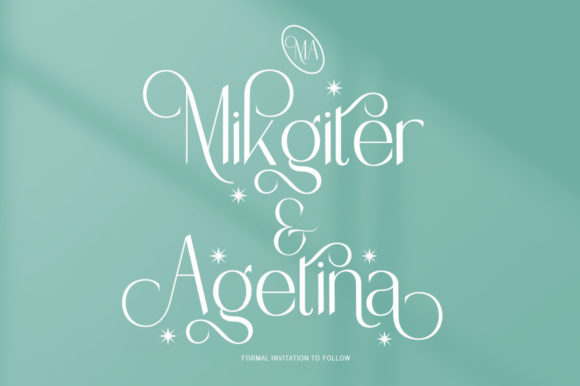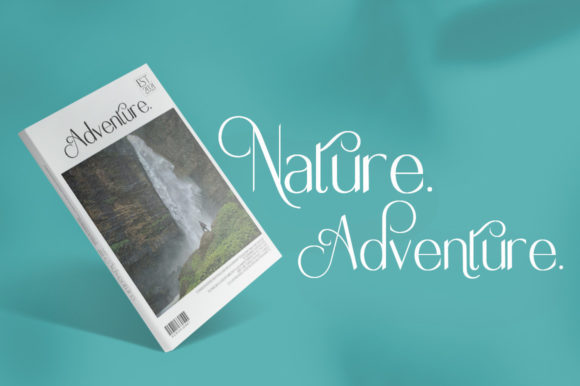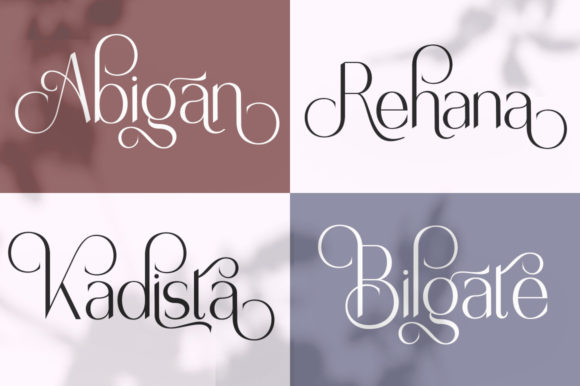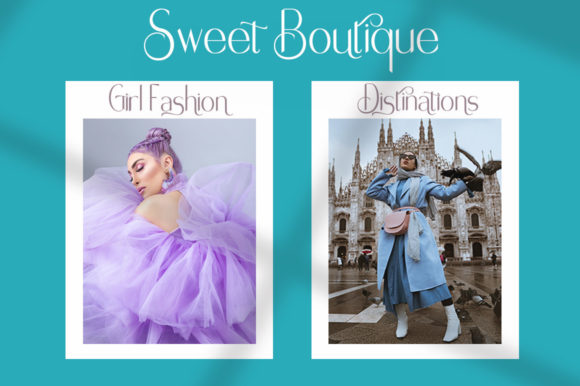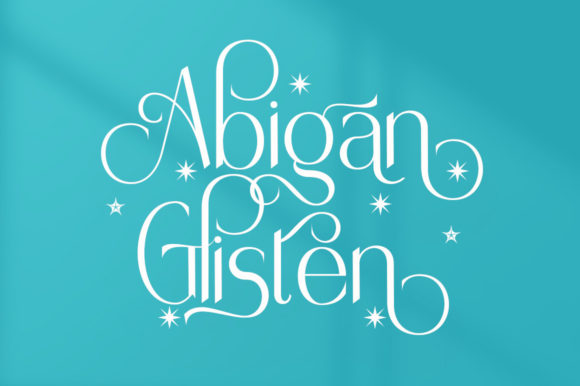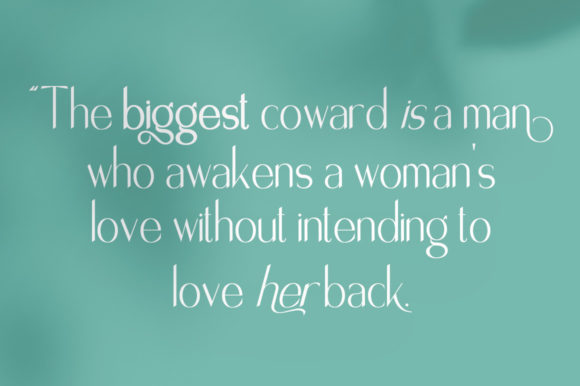
Introducing Abigan Font: Elevate Your Designs with Elegance
In the world of typography, a font can make or break a design. For designers and crafters seeking to add a touch of sophistication and class to their projects, Abigan Font is an excellent choice. This elegant serif font is designed to bring a delicate and refined aesthetic to your work, making it perfect for a wide range of applications.
The Characteristics of Abigan Font
Abigan Font stands out for its balanced and varied design. It is not too thin, nor too thick, making it versatile for use in various contexts. Whether you’re working on a luxury brand logo, a high-end product catalog, or an elegant wedding invitation, Abigan Font provides the perfect blend of sophistication and readability.
Delicate yet Durable
One of the key features of Abigan Font is its delicate look, which does not compromise on durability or legibility. The font’s design ensures that it remains clear and readable even at smaller sizes, making it ideal for body text in brochures, magazines, and websites. At the same time, its elegant strokes and classic serif details add a touch of luxury and refinement to headings and titles.
Abigan Font’s versatility is one of its strongest assets. It can be used across various design projects, including:
- Branding: Create a lasting impression with elegant logos and wordmarks that exude sophistication.
- Print Design: Enhance your brochures, posters, and business cards with a refined and classy look.
- Digital Media: Use Abigan Font in your website designs, social media graphics, and email newsletters to add a professional touch.
- Crafting: Perfect for crafters, Abigan Font can be used in DIY project designs, such as handmade cards, scrapbooking, and more.
Why Choose Abigan Font?
There are several reasons why designers and crafters are gravitating towards Abigan Font:
- Elegance: It brings an unmatched level of elegance to any project.
- Legibility: Its balanced design ensures high readability across different sizes and applications.
- Versatility: Suitable for a wide range of design projects, from digital to print.
- Uniqueness: Stands out from more commonly used fonts, giving your designs a distinctive look.
Tips for Using Abigan Font Effectively
To maximize the impact of Abigan Font in your designs:
- Pair it with Simplicity: Let the font be the focal point by pairing it with simple backgrounds or design elements.
- Experiment with Sizes: Play with different sizes to highlight the font’s versatility and range.
- Consider Line Spacing: Ensure adequate line spacing to maintain readability, especially in longer texts.
Abigan Font offers designers and crafters a unique opportunity to elevate their projects with an elegant and classy serif font. Its balanced design, versatility, and elegant appearance make it an excellent choice for anyone looking to add a touch of sophistication to their work. Whether you’re designing for print, digital media, or crafting, Abigan Font is sure to enhance the beauty of your projects.